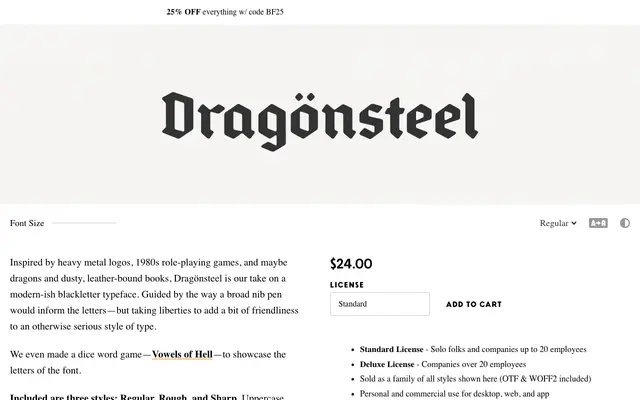
Dragönsteel
A broad-nib-informed blackletter in three stylistic variants, drawing on heavy metal logos and 1980s role-playing game aesthetics with a deliberately approachable character.
Three styles, Regular, Rough and Sharp, each built on the same broad-nib blackletter skeleton but with distinct surface qualities ranging from clean to distressed to angular. The character set includes uppercase, lowercase, numerals, Latin Extended accents, alternate glyphs, ligatures and three styles of capitals. Aimed squarely at display use in fantasy, gaming and music contexts where blackletter is expected but rigid formality is not.
Dragönsteel is explicitly a blackletter typeface, informed by broad nib pen construction and referencing heavy metal lettering and medieval typographic traditions, while softening the style with friendlier proportions.